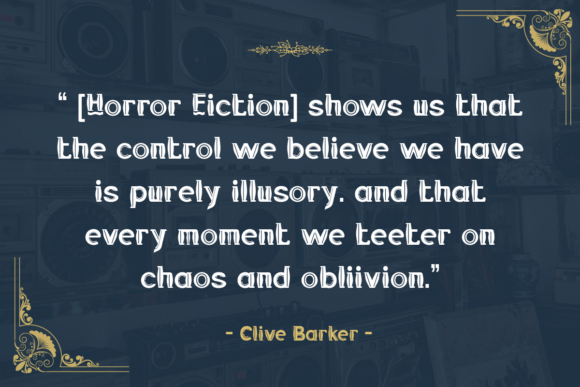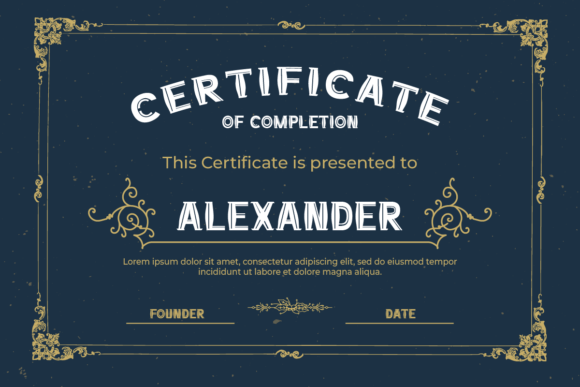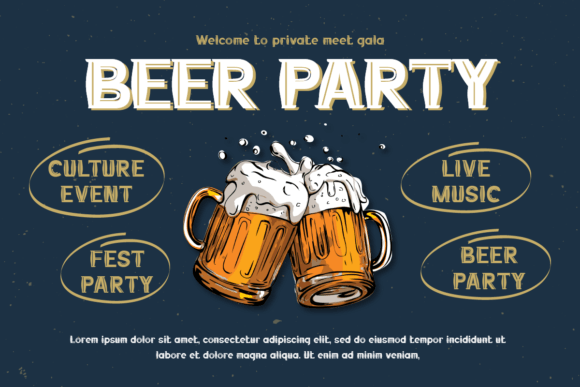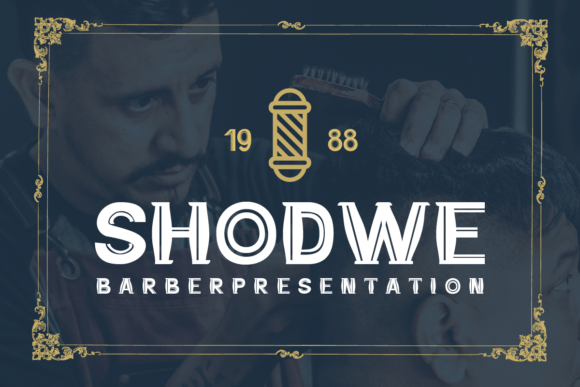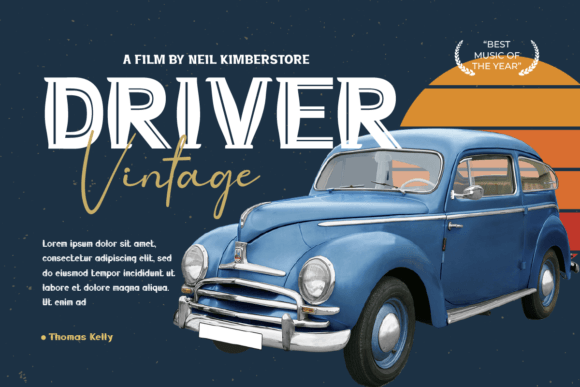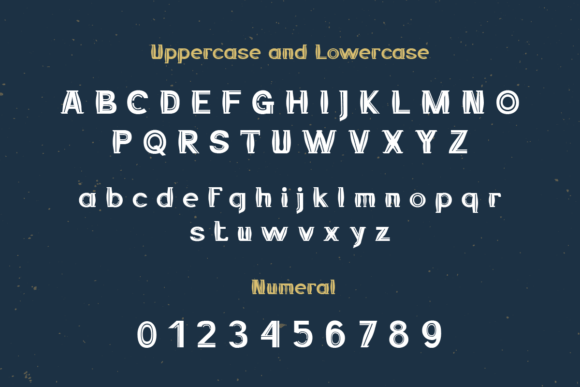
Introduction to Hanim Font
Introducing Hanim, the perfect blend of modern and vintage aesthetics.
With its sleek lines and elegant curves, this font is sure to catch the eye of anyone looking for a sophisticated yet trendy design Hanim is perfect for a variety of applications, from branding to editorial design.
Key Features of Hanim Font
Hanim Font offers exceptional quality and versatility, making it a valuable addition to your design toolkit. Whether you’re creating for personal projects or commercial use, Hanim Font delivers professional results.